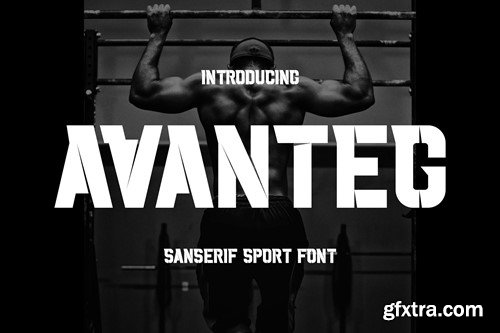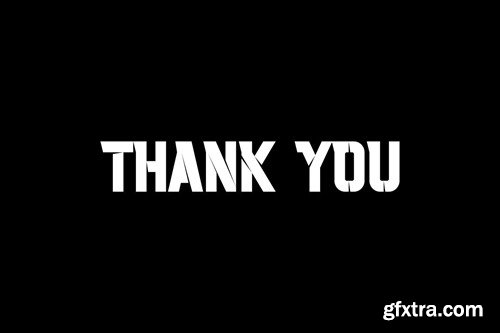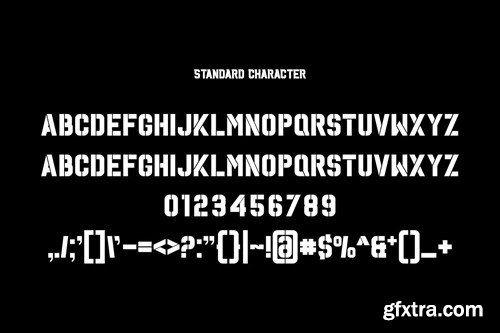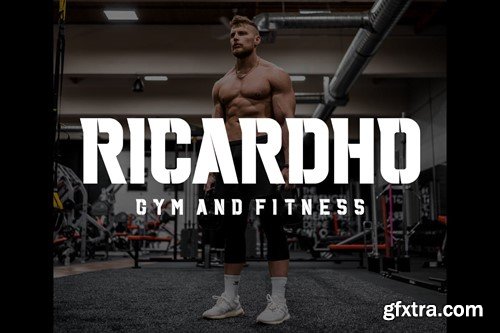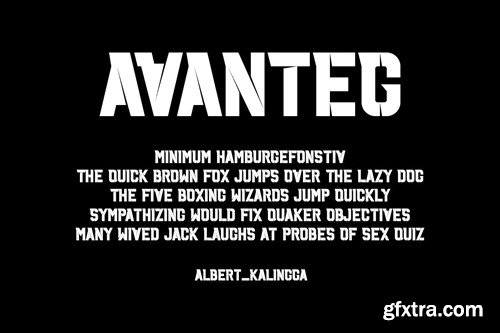
Avanteg Font
Introducing our new product Avanteg Font - Modern Font is a bold and authentic display font. The font is suitable for any branding project like logo, esport, and many more. outstanding in a wide range of contexts. availlable